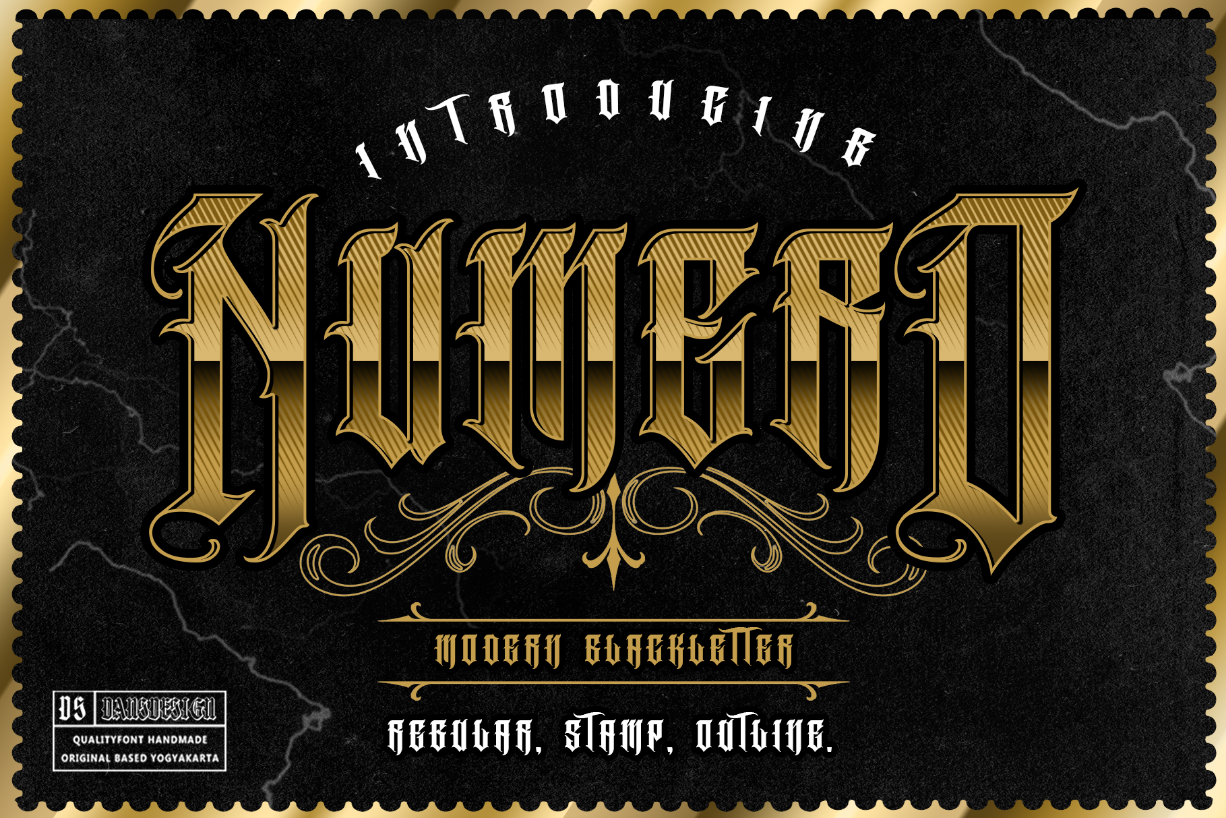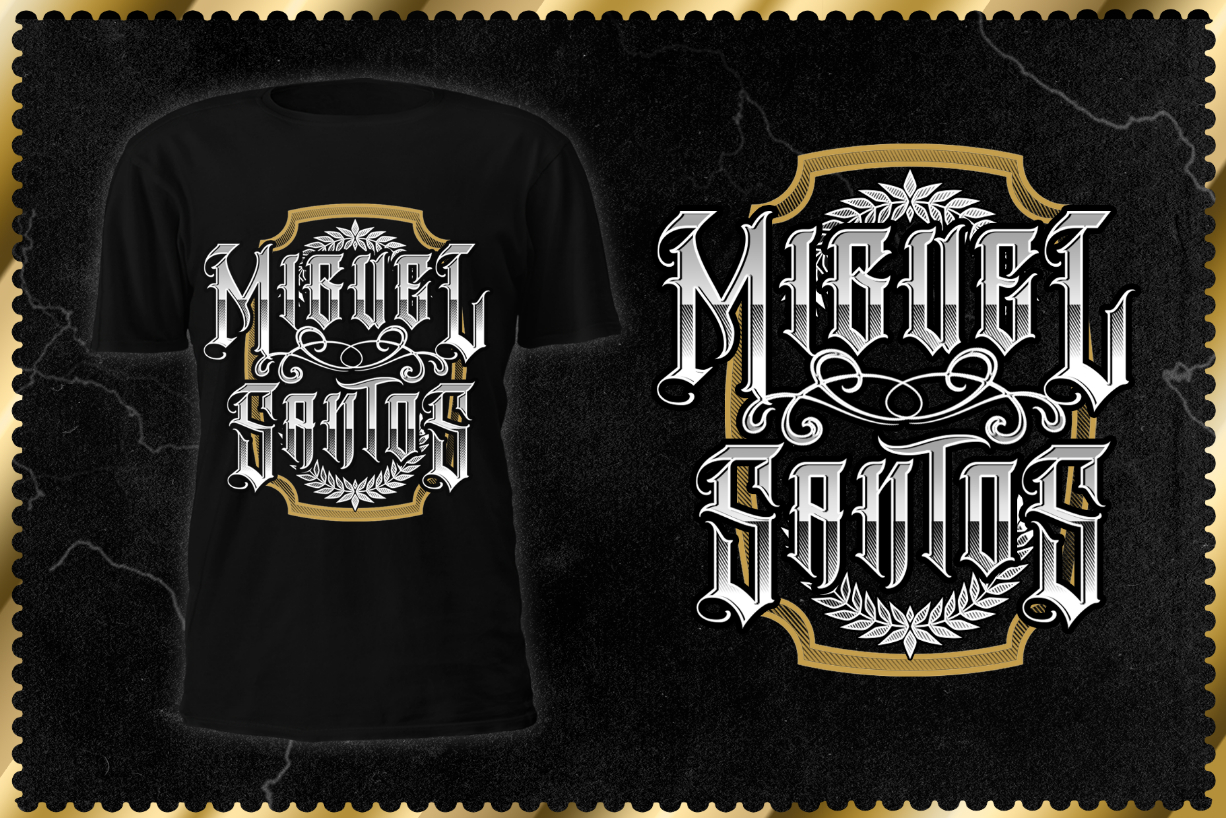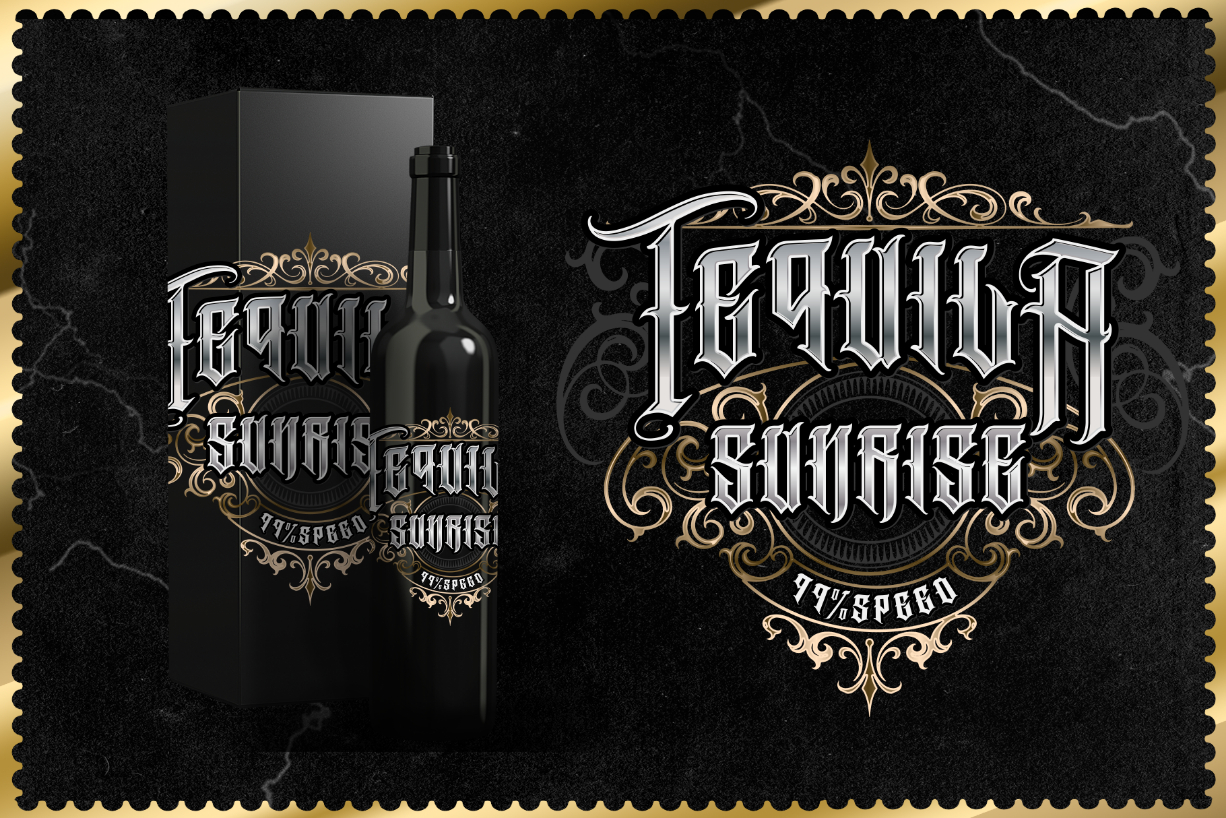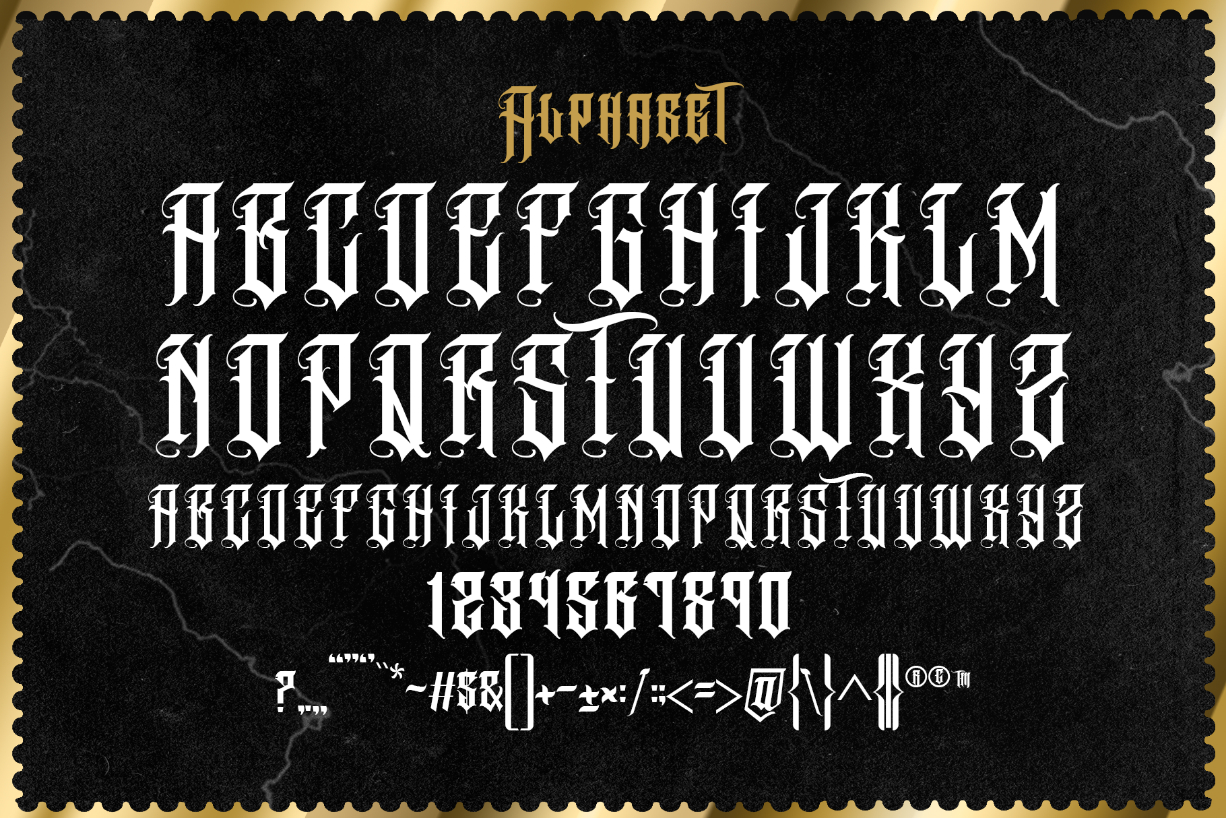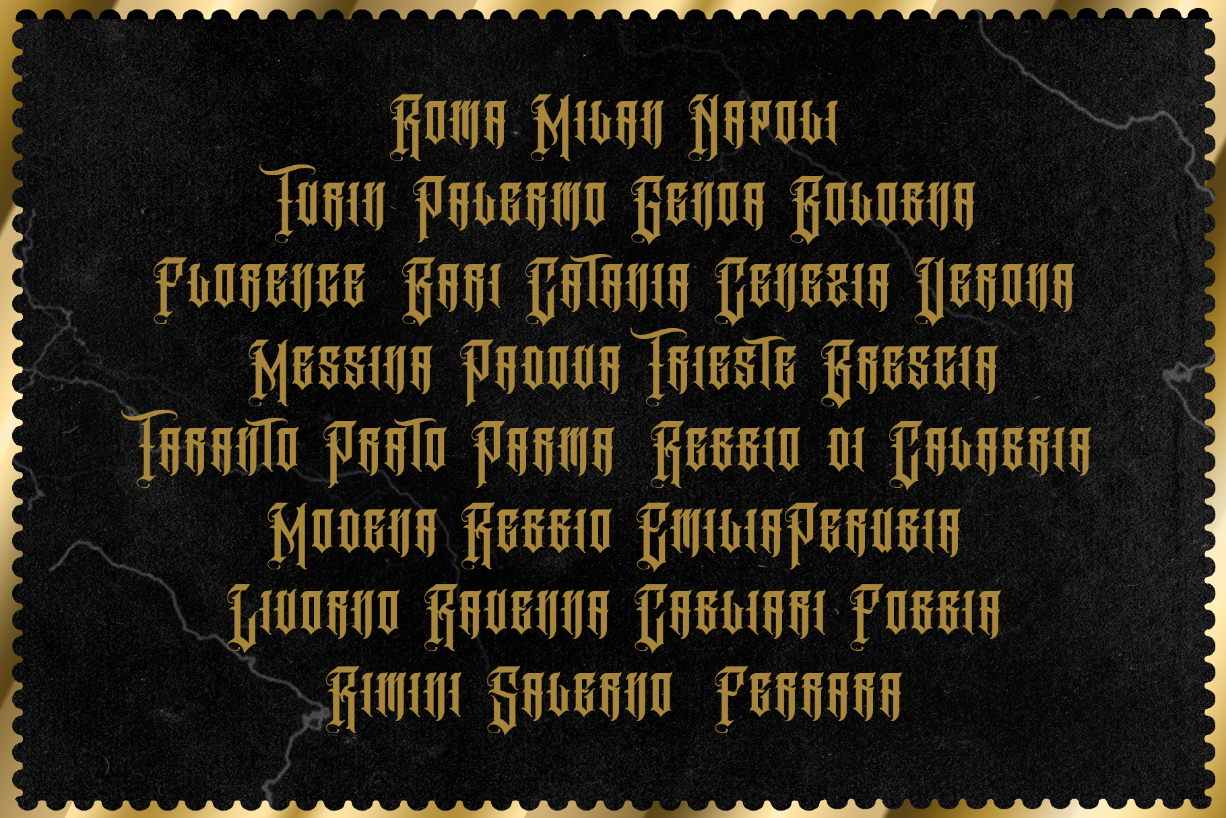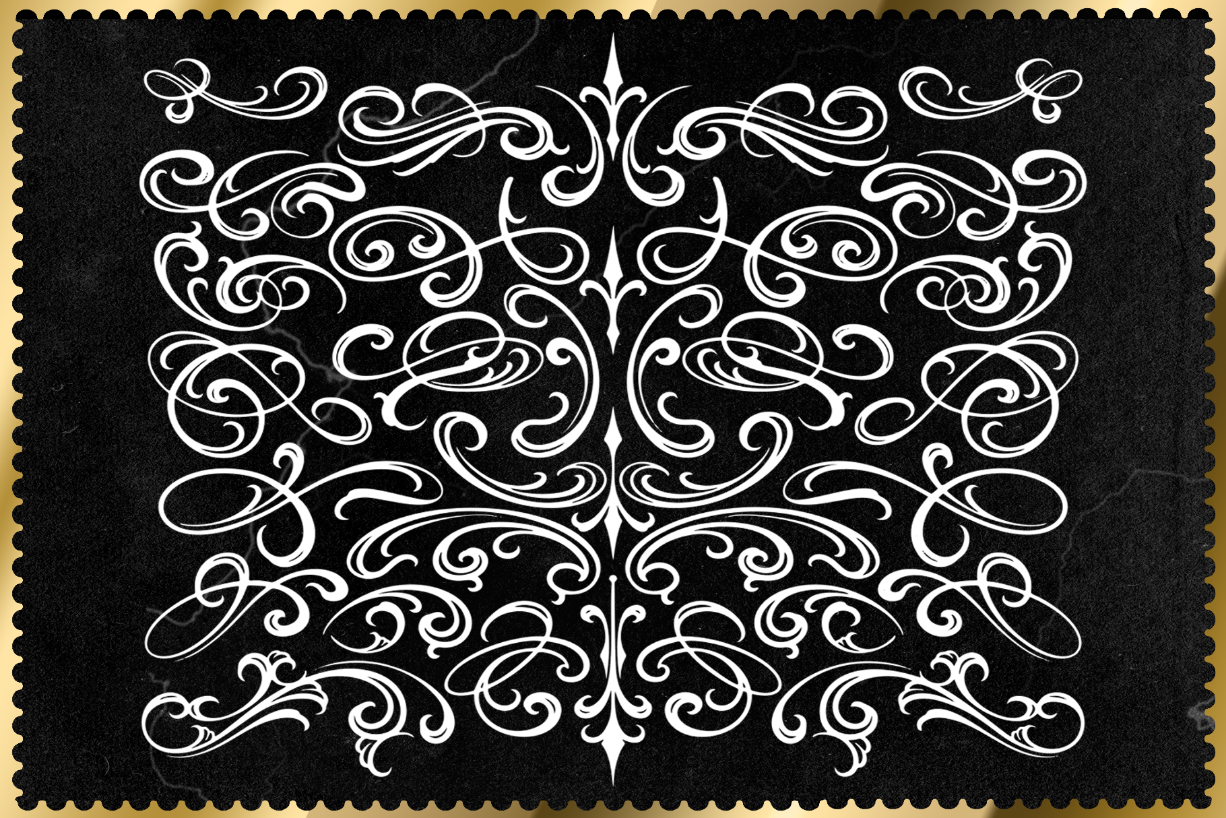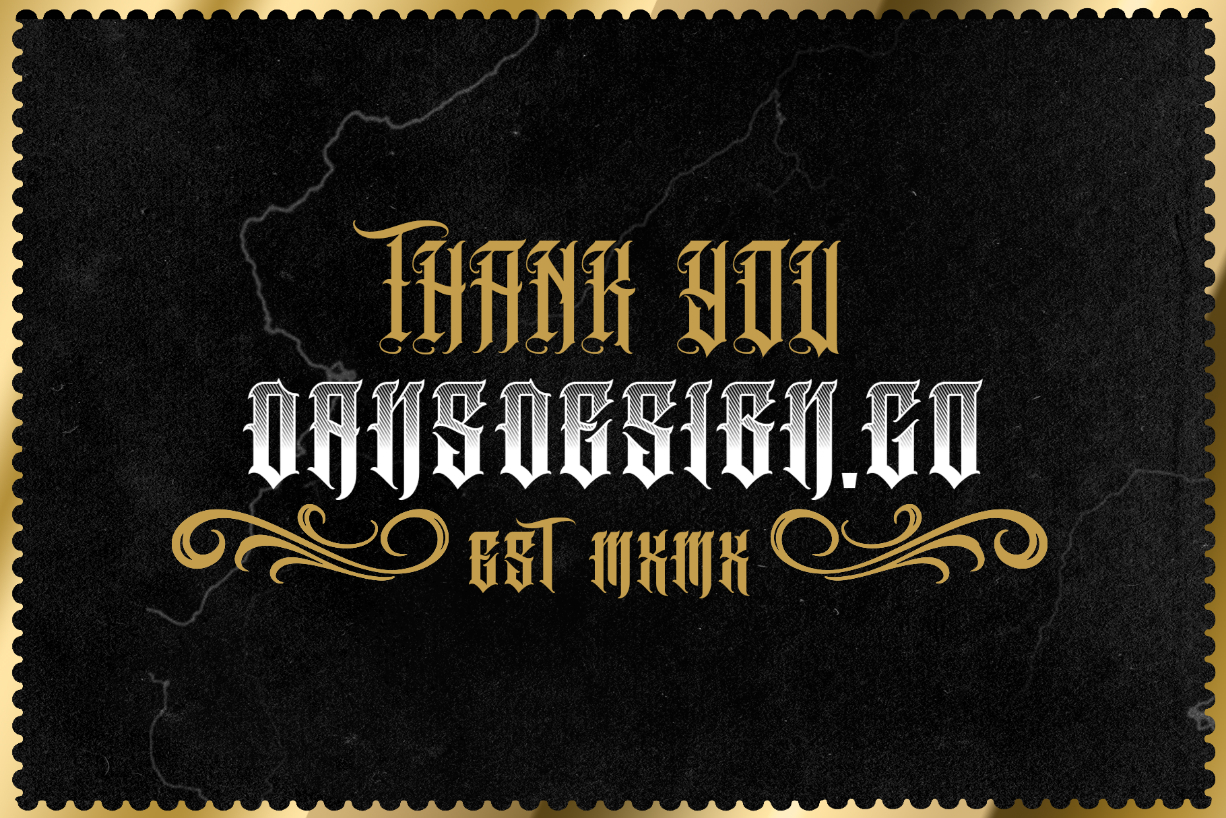
About Numero Font
Numero is a gothic styled and assertive blackletter font. This font is neatly crafted and highly detailed. Whatever the topic, Numero will be a wonderful asset to your font library, as it has the potential to enhance any creation.